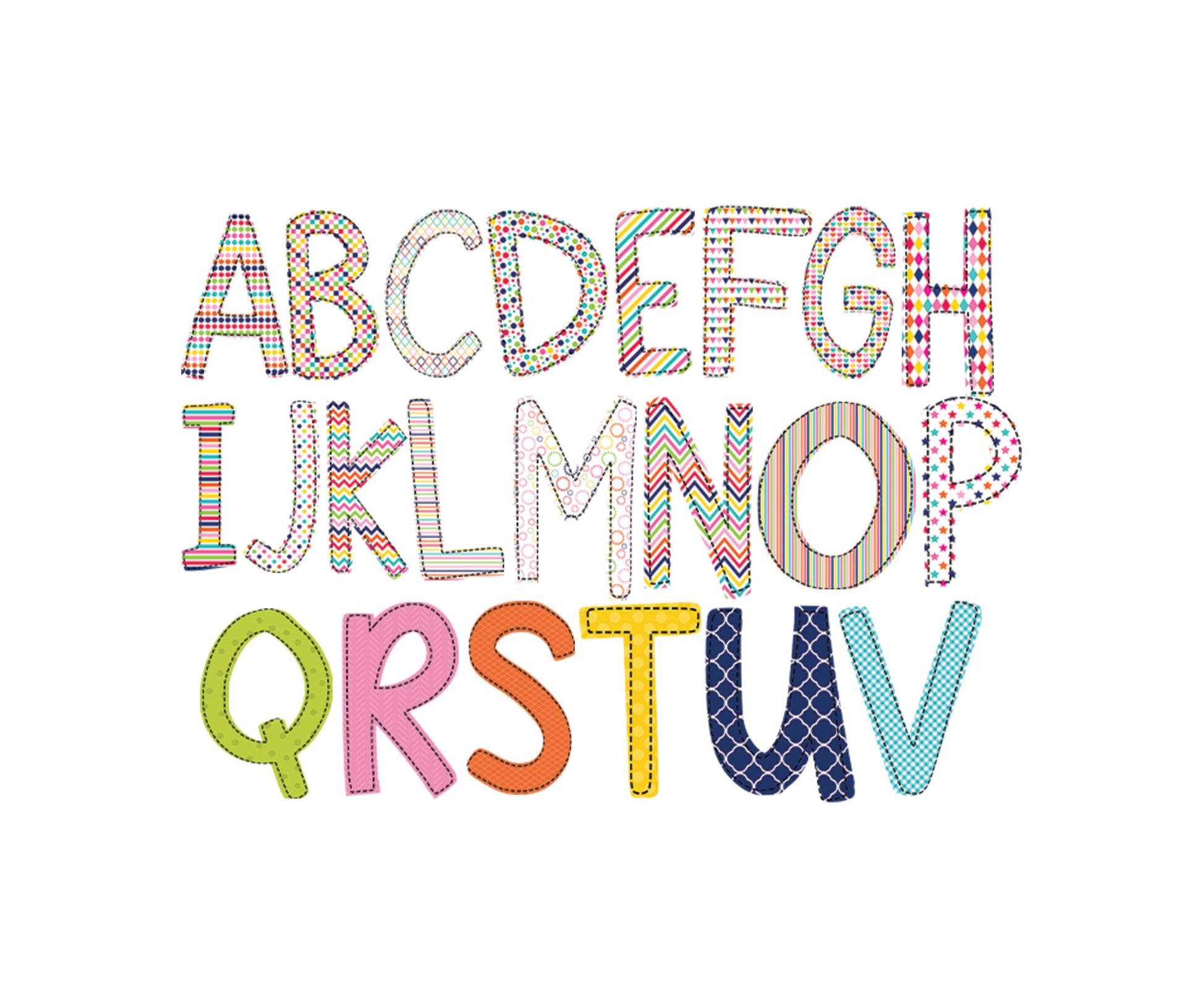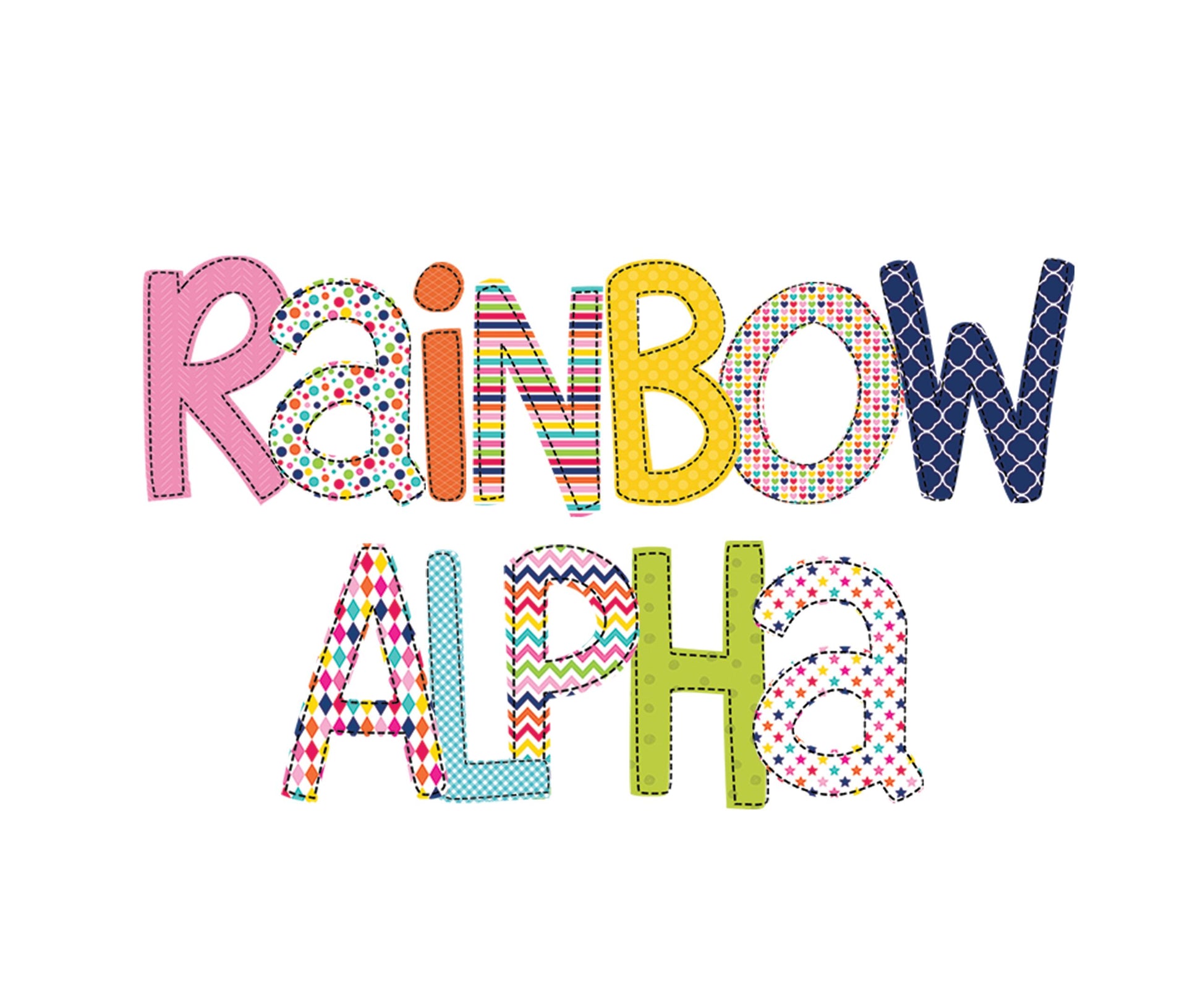
Rainbow Alpha Font
Bright rainbow patter alpha font. Unique digital designs for screen printing, sublimation projects, invitation clip art and more! Set includes 22 full patterns!